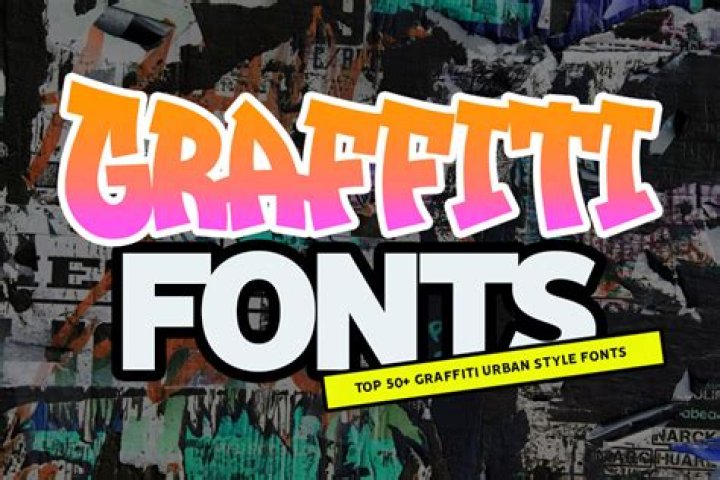
Now, let me share with you a selection of the best graffiti fonts we’ve got.
• Okami – Brush Font (OTF)
• Handstyle Graffiti (TTF, OTF)
• Minority Typeface (TTF, OTF)
• Crazy Marker Graffiti Font (TTF, OTF)
• Ember Typeface (OTF)
• Desperado St Graffiti Font (TTF, OTF)
• In Knots Font (TTF, OTF)
• Rolingline Typeface (TTF, OTF)
What is a graffiti font on Word?
A graffiti font allows you to transform standard text into artful letters and numbers. Many websites offer free downloads of graffiti fonts that you then add to your font library on your computer. Once the graffiti font is in your font library, you are able to do graffiti in PowerPoint.
How do you graffiti text in Photoshop?
What font looks like street art?
Urban decay is a handmade brush font that creator Zofos made to ‘celebrate graffiti, urban exploration, street calligraphy and inner city living. ‘ This font is one of the best graffiti fonts we’ve seen, with a rugged authenticity that will bring an urban feel to your projects.
Is there a graffiti font?
Urban Decay Urban decay is a handmade brush font that creator Zofos made to ‘celebrate graffiti, urban exploration, street calligraphy and inner city living. ‘ This font is one of the best graffiti fonts we’ve seen, with a rugged authenticity that will bring an urban feel to your projects.